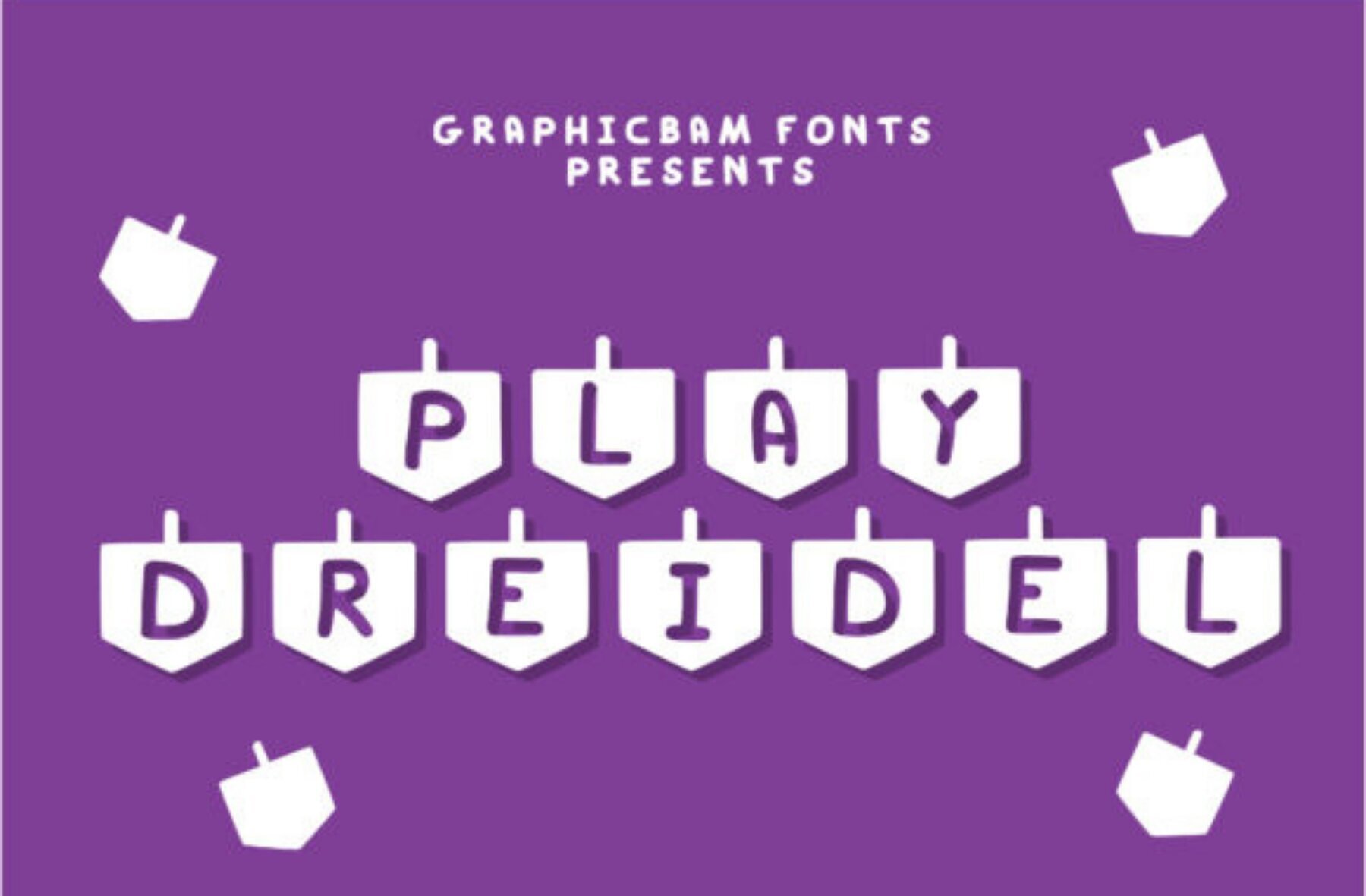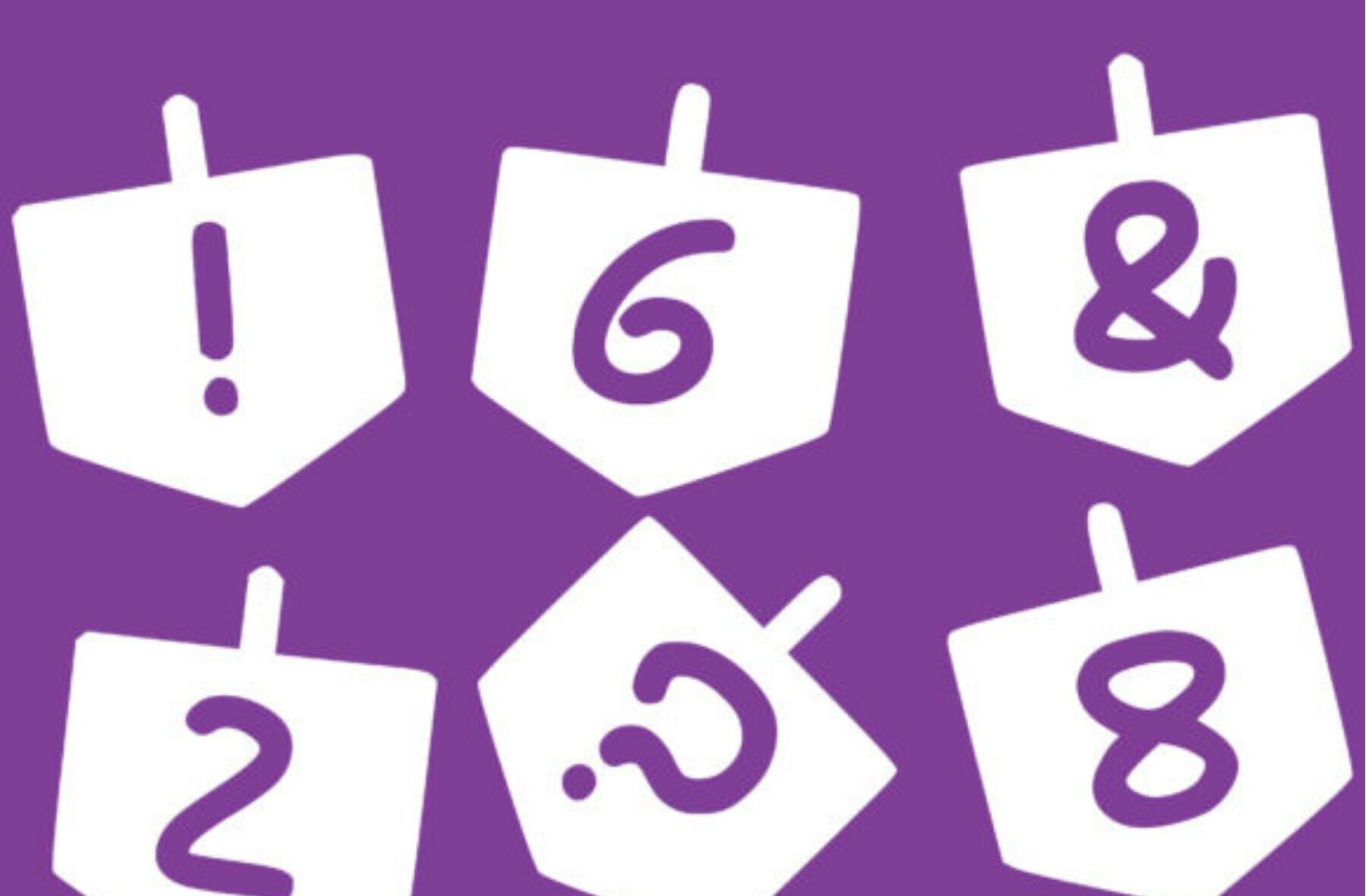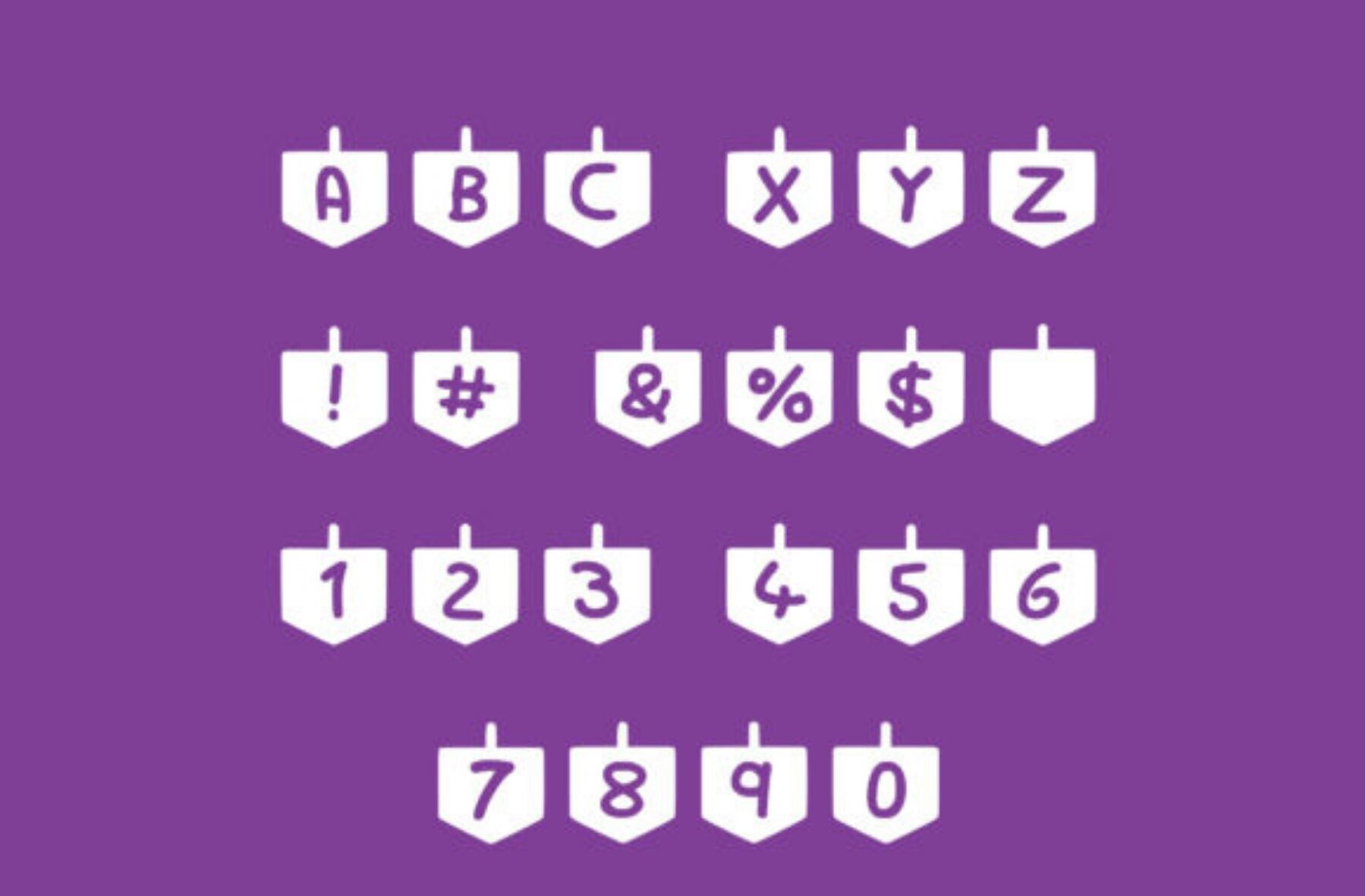
Play Dreidel Font
Play Dreidel
Introducing Play Dreidel, a charming decorative font that brings a playful, child-like exuberance to any project. Whether you're crafting materials for children's activities or designing educational resources, this trendy and authentic typeface ensures your work stands out. Its delightful set of ornaments injects creativity and fun into every letter, inviting young minds to explore and engage.Play Dreidel: A Whimsical Decorative Font
Features of Play Dreidel